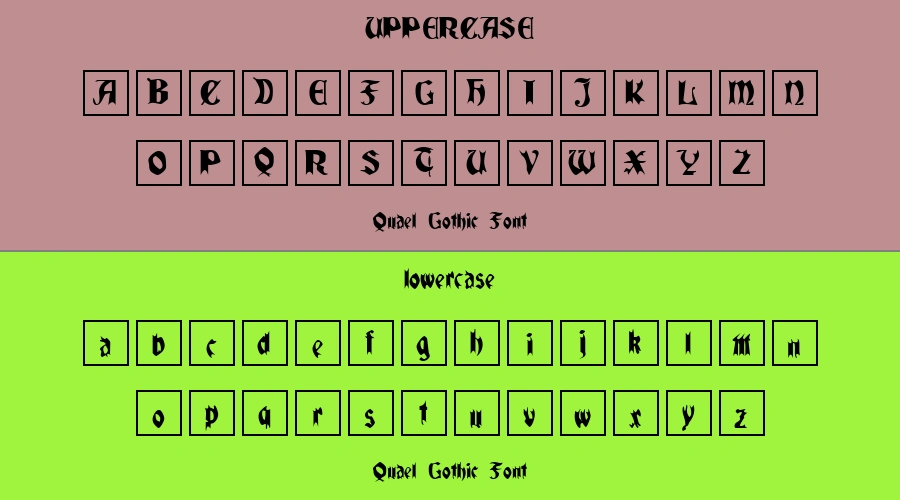
About Quael Gothic Font
Designed with precision, Quael Gothic Font merges brush influence with flexibility in every character. This versatility makes it particularly effective for advertising headers, where sophistication and consumer connection directly impact communication quality. Each letterform demonstrates meticulous craftsmanship.
Technical excellence shines through elements like precise joints and titling alternates, enhancing typographic versatility. In colophons settings, Quael Gothic Font proves its worth through superior kerning accuracy. The thoughtful execution of joint detail and historical context ensures professional results.
Quael Gothic Font |